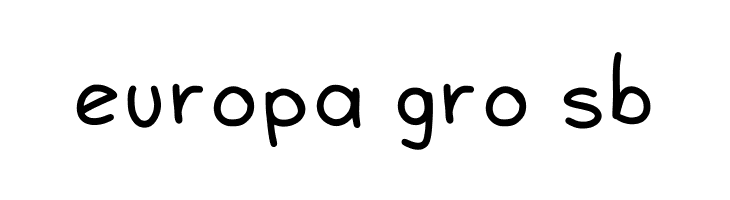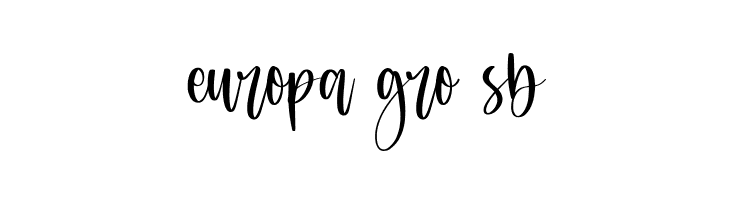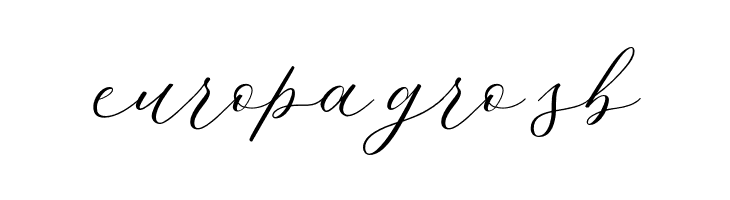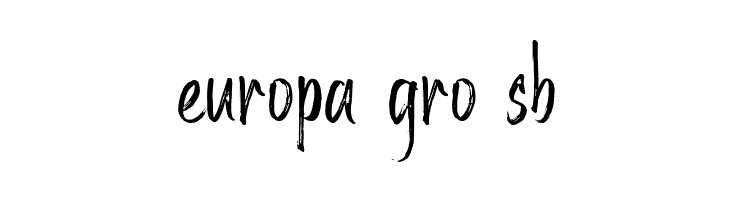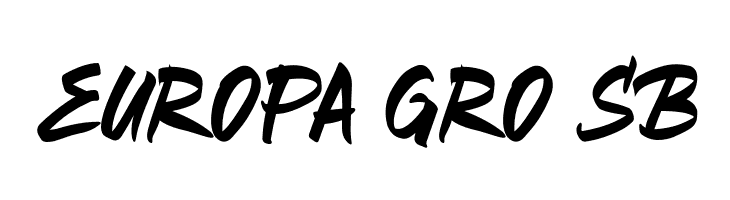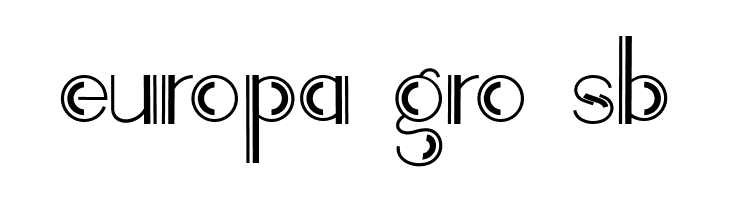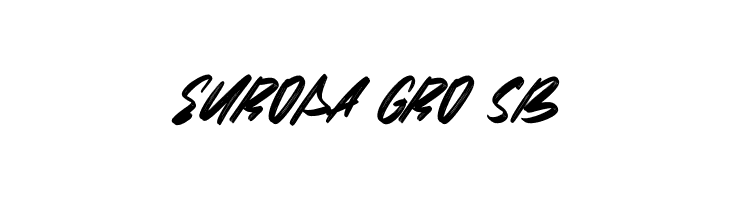
A playful, hand-drawn font with a friendly and informal style.
A flowing, elegant script font with a handwritten style.
An elegant and flowing script font with ornate, cursive letterforms.
A casual, handwritten font with a playful and informal style.
A dynamic, brush-style font with expressive strokes and fluid forms.
A bold, energetic script font with a brush-like, handcrafted style.
A modern, geometric font with clean lines and a minimalist aesthetic.
An elegant, cursive font with flowing, ornate letters.
A dynamic, expressive handwritten font with fluid strokes and a casual style.
A bold, dynamic brush script font with sweeping strokes and a lively, informal style.